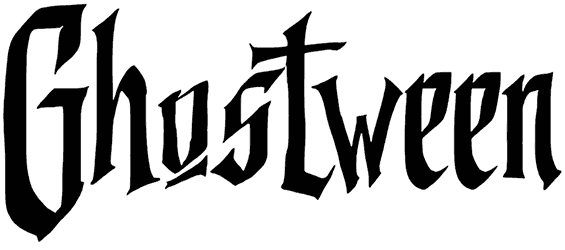
Ghostween Font
This will be so cool to have a chilling design with an eldritch and cursed text. As a Halloween font, Ghostween is a perfect spooky item for many designs like vampire movies, haunted games, dread titles, and so on. Set this horror font for your future project and show your creativity.